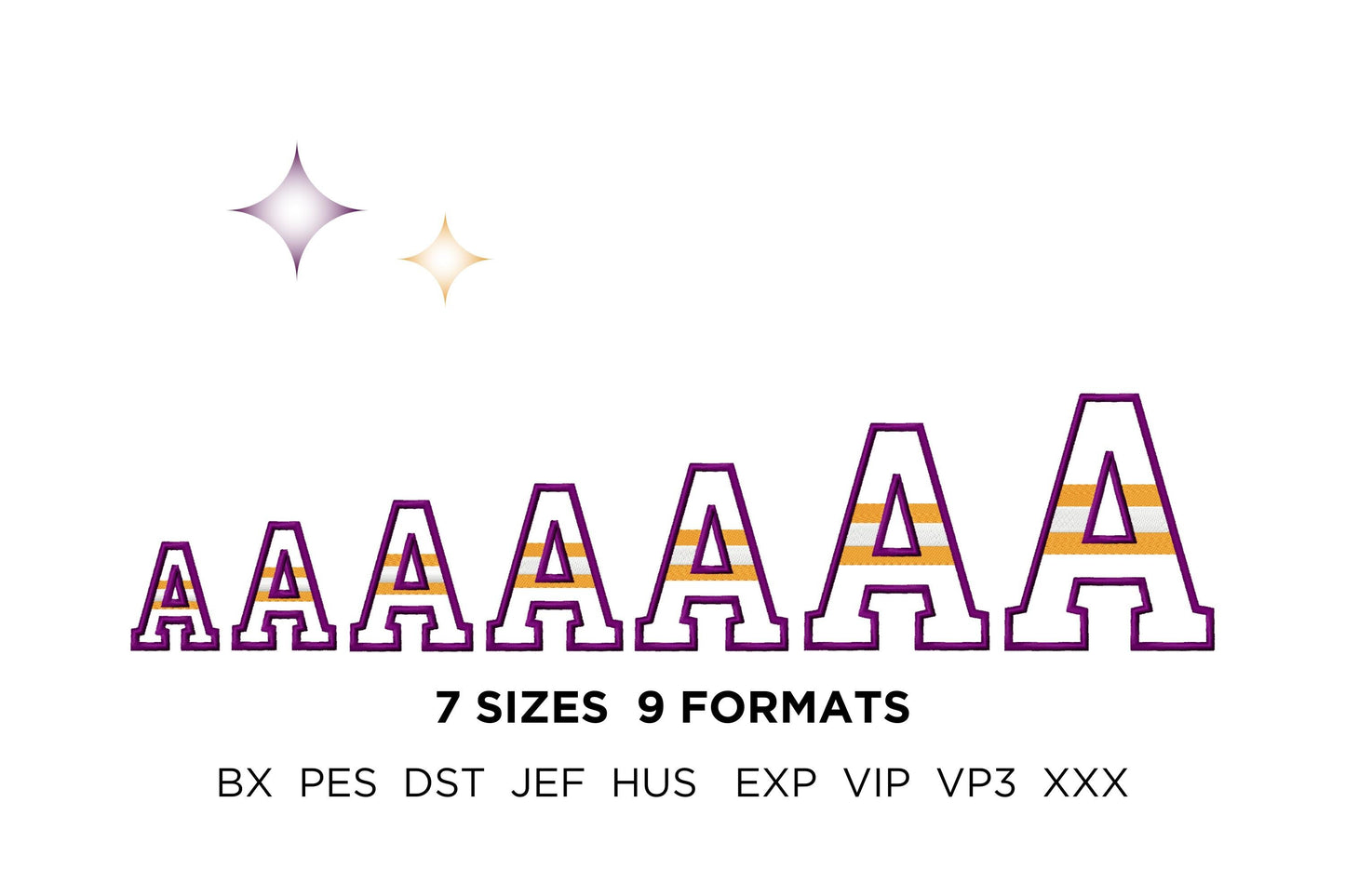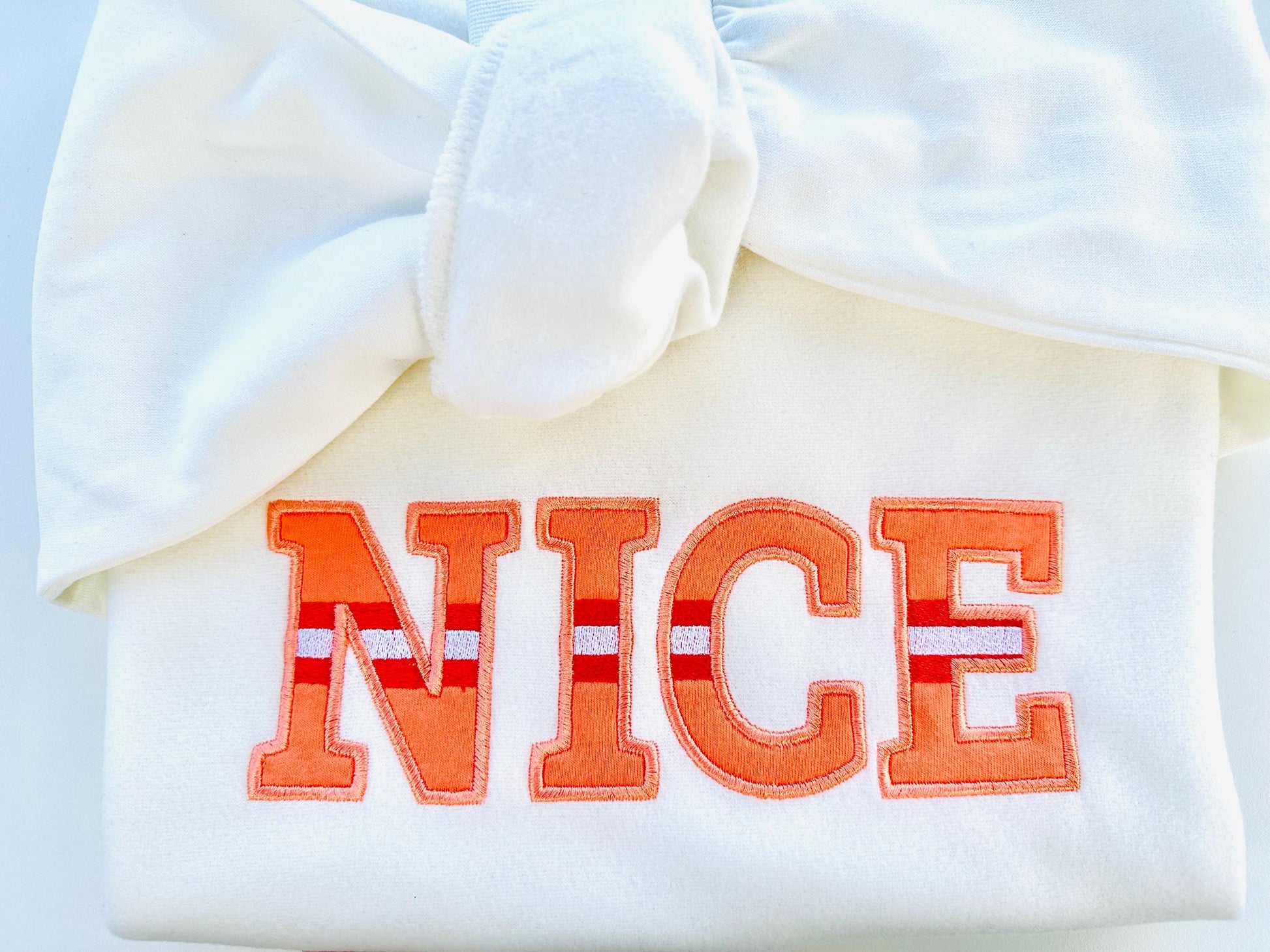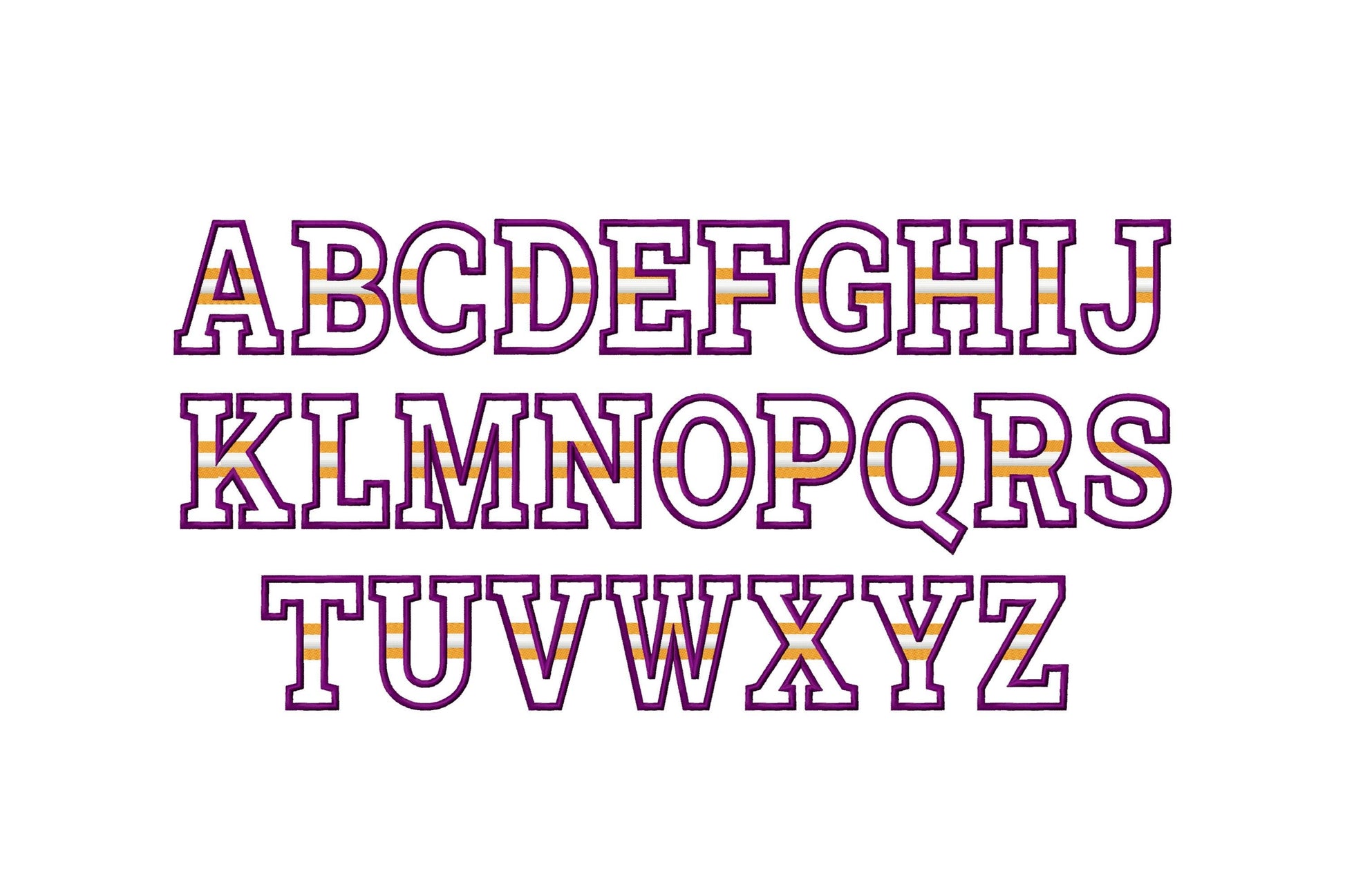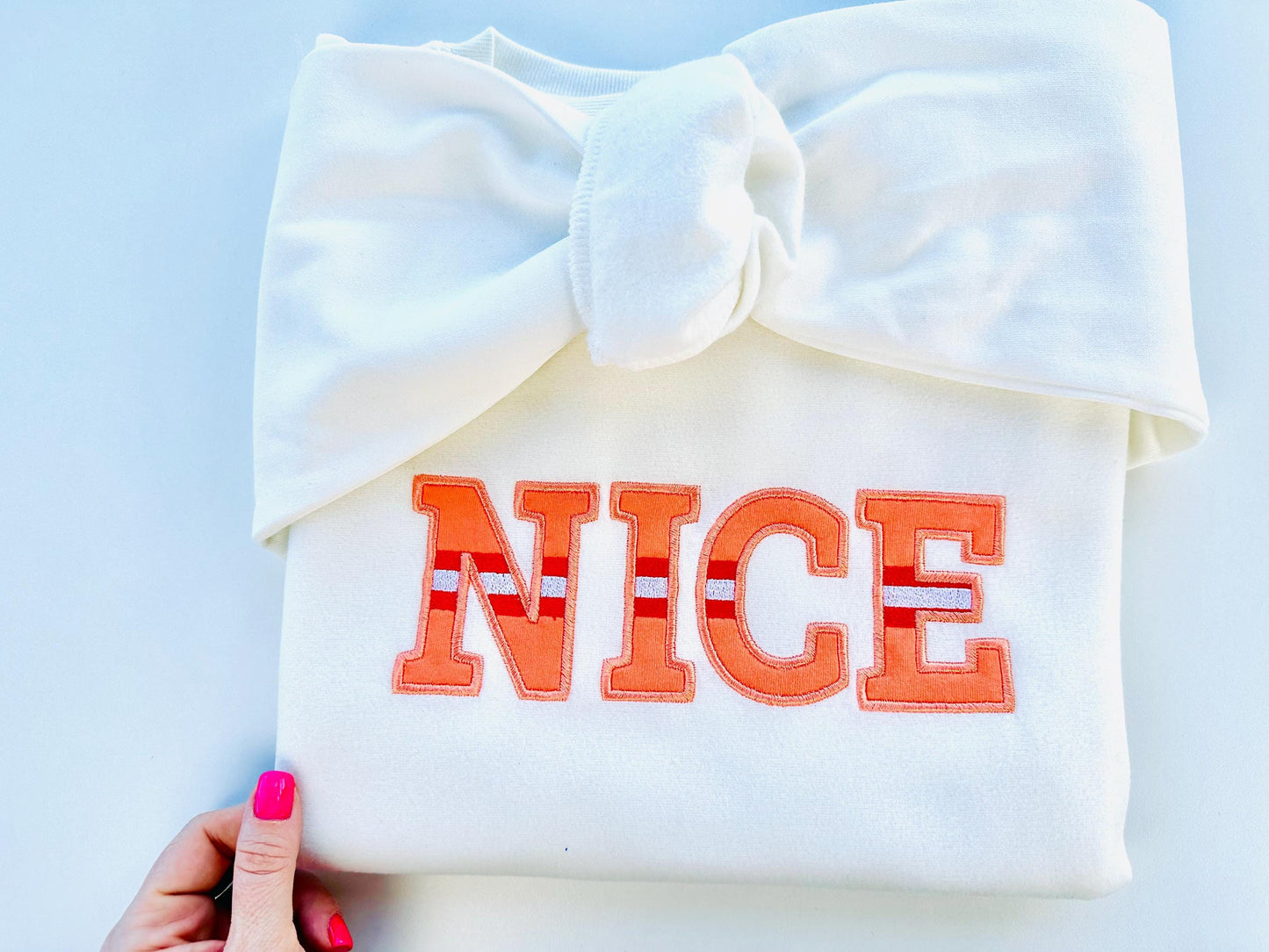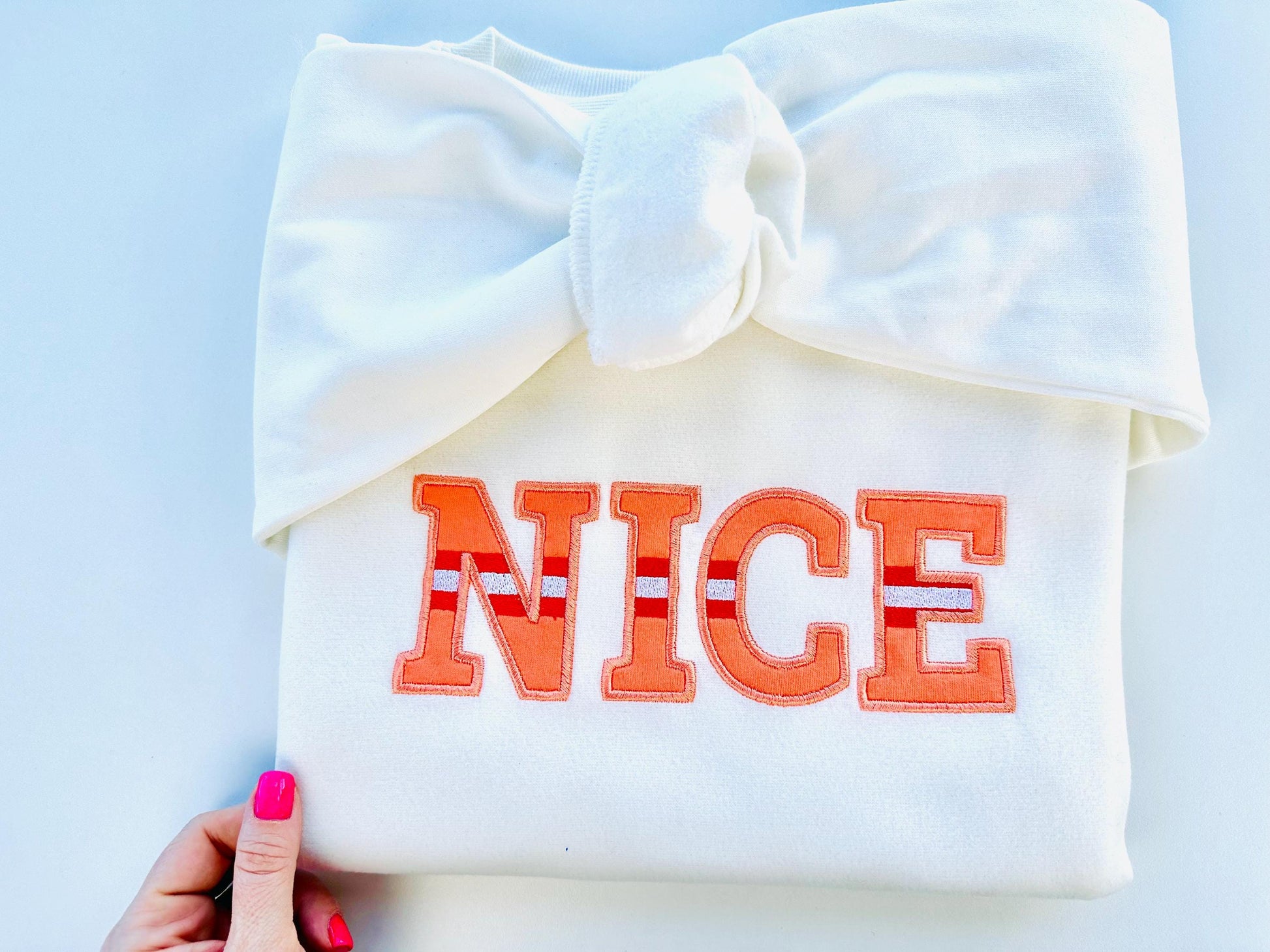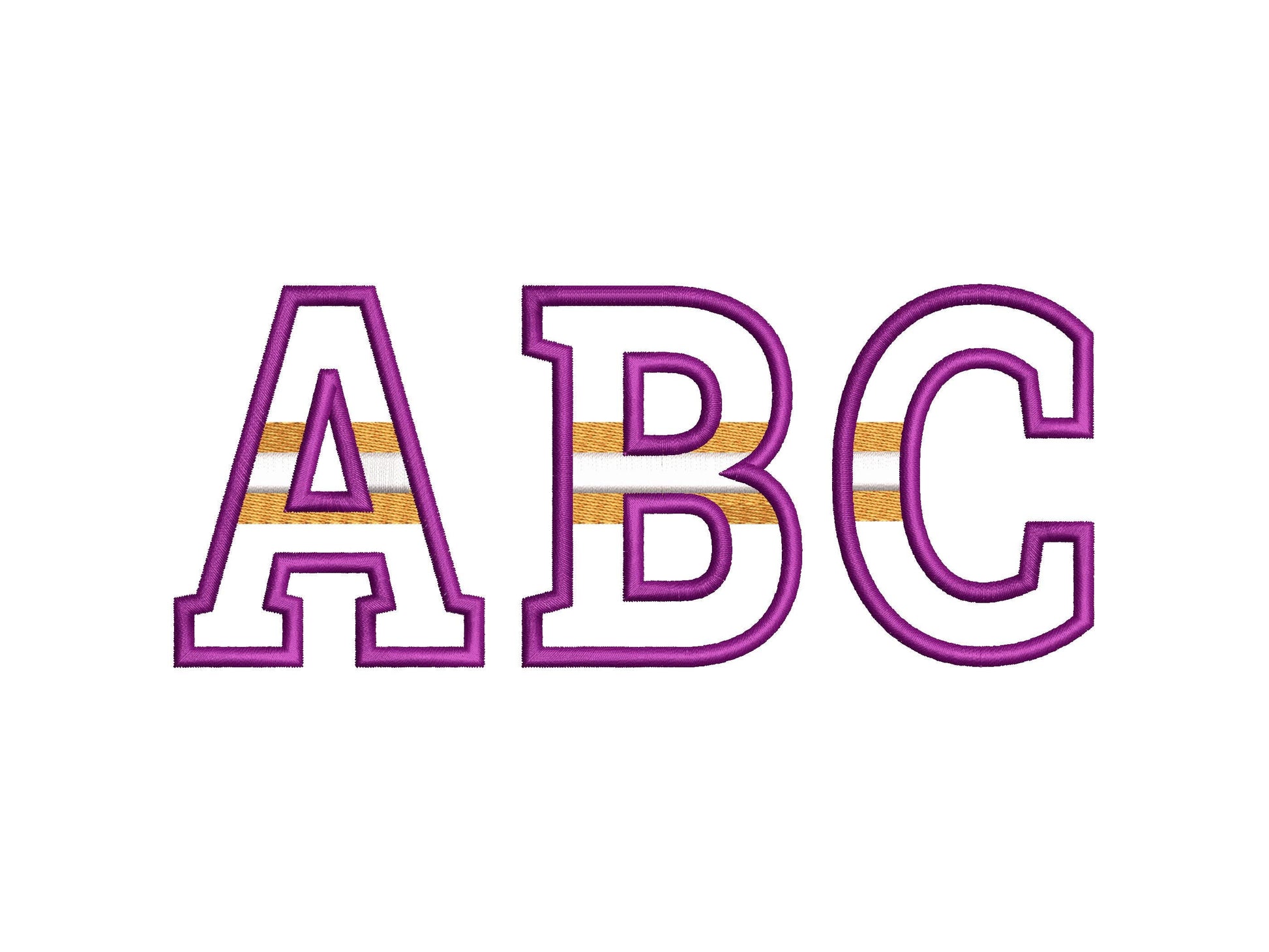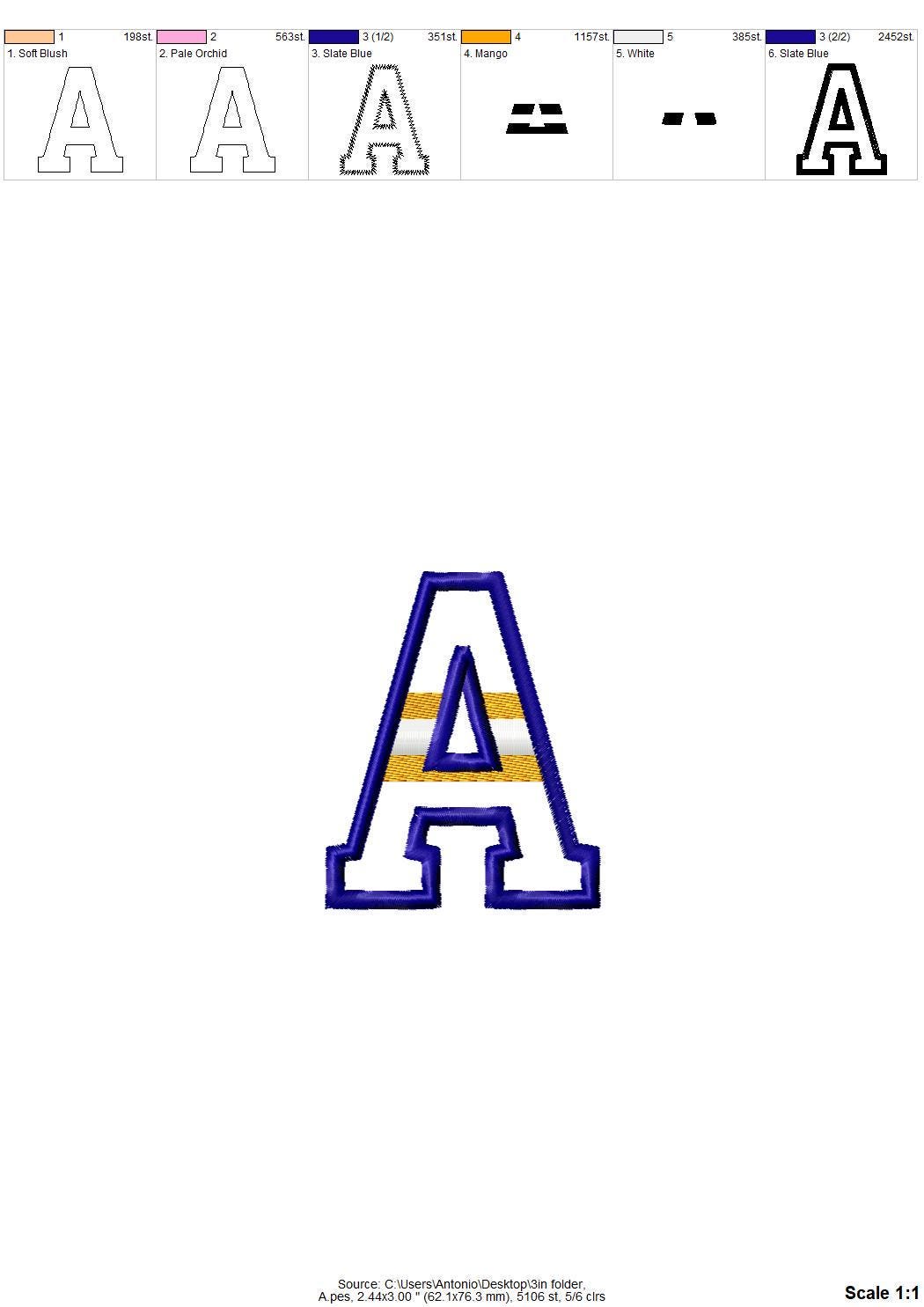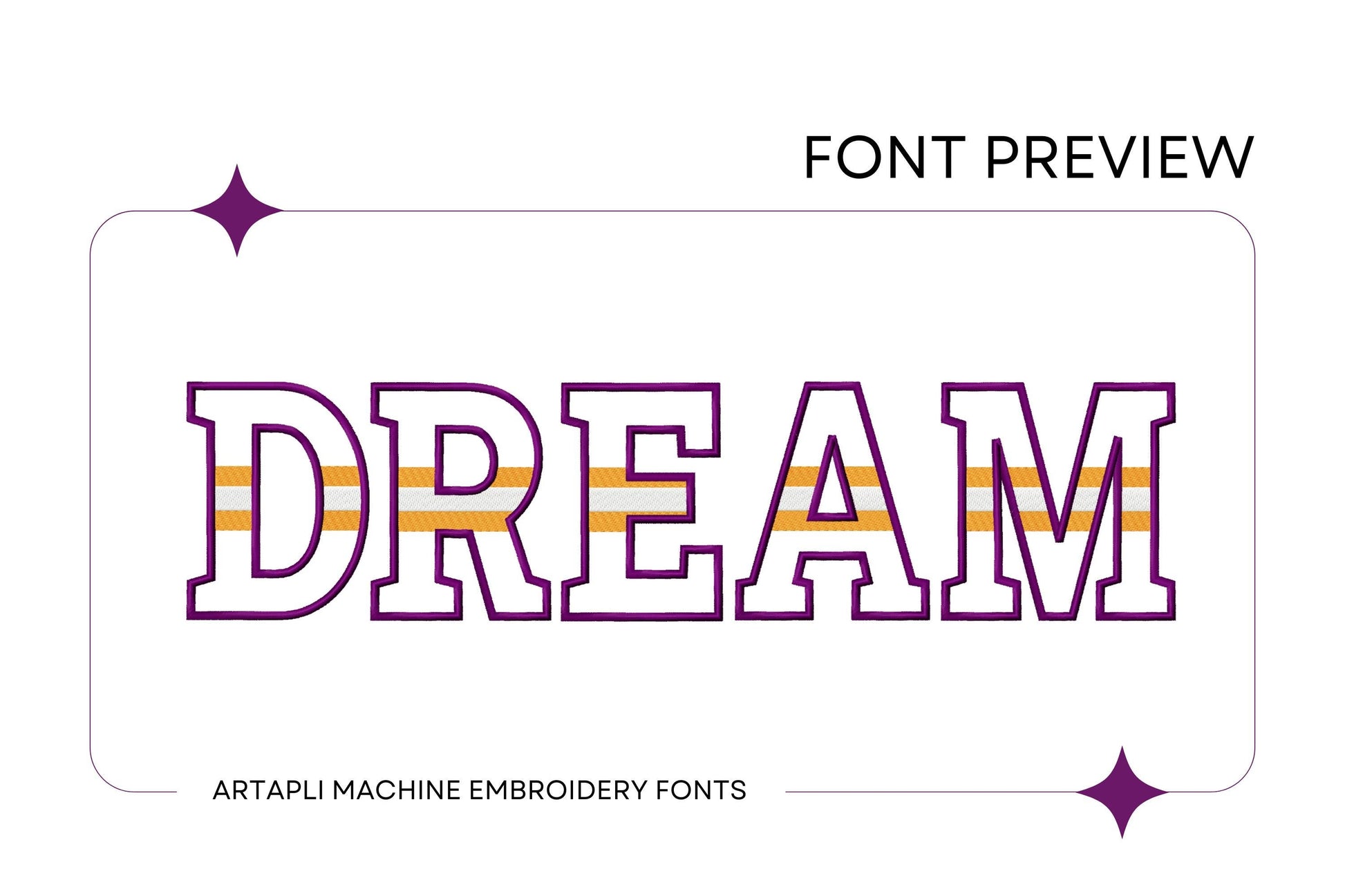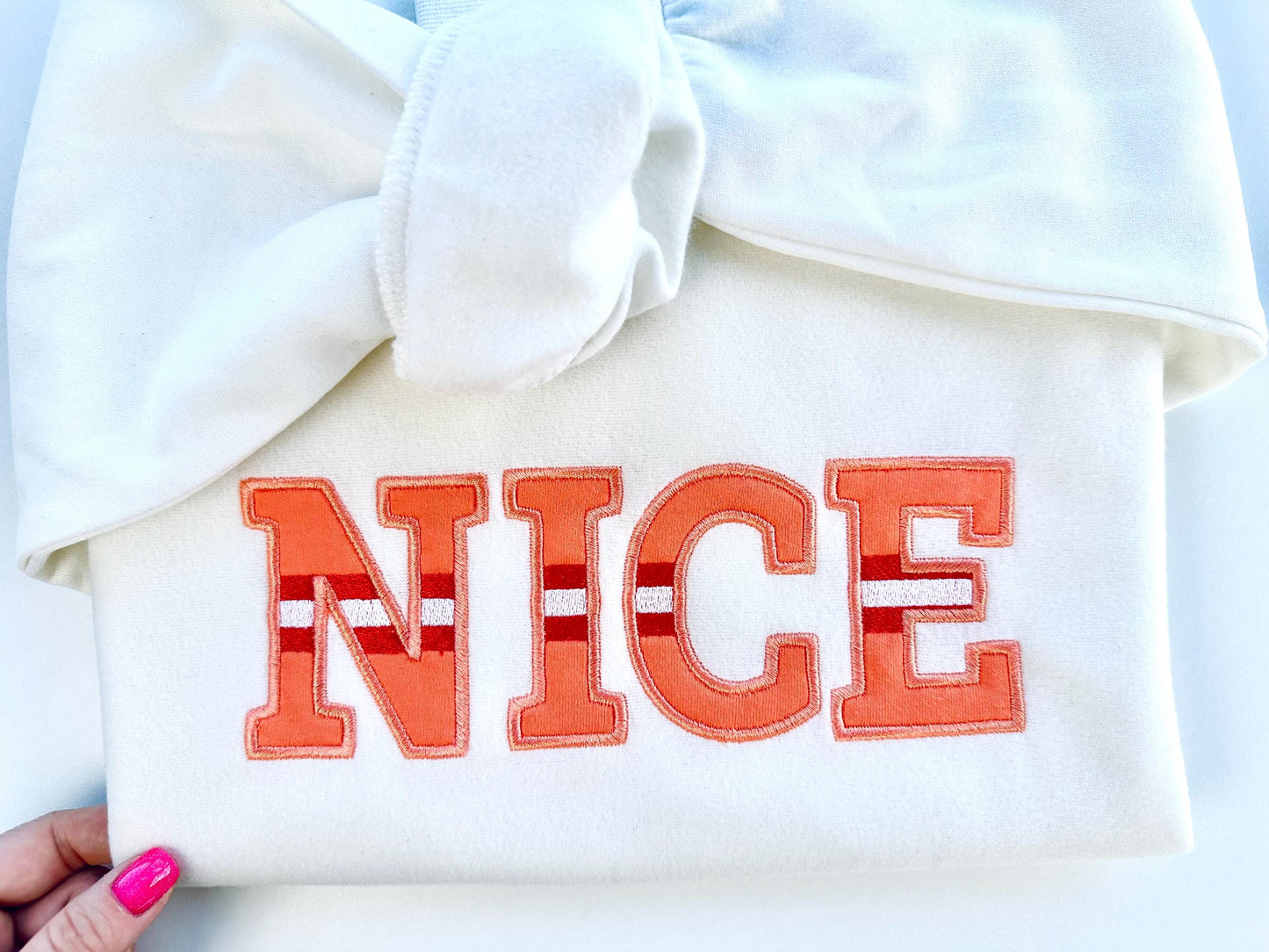
Striped Font Applique Sports Stripes Alphabet Monogram Letters Block
Capital letters A to Z in seven sizes: 2.2, 2.6, 3, 3.3, 3.7, 4.5 and 5 inches.
- Striped sports applique font
- Uppercase A-Z
- 7 sizes, 2.2 to 5 in